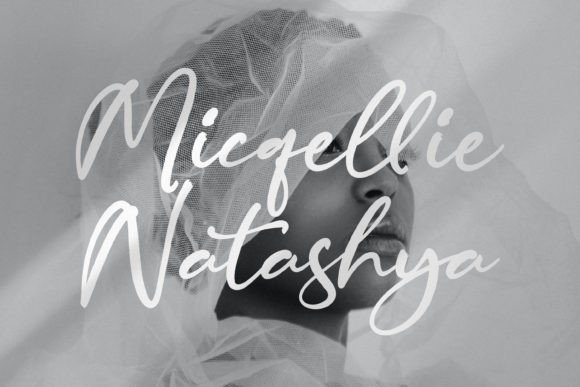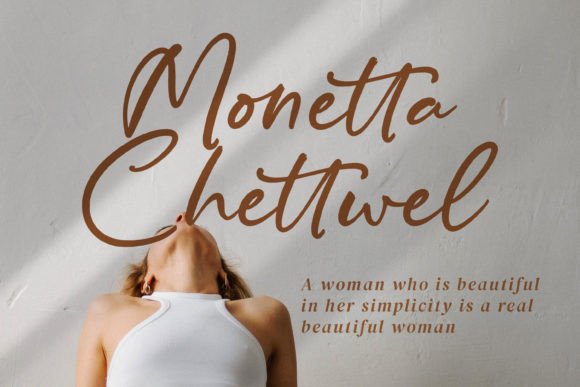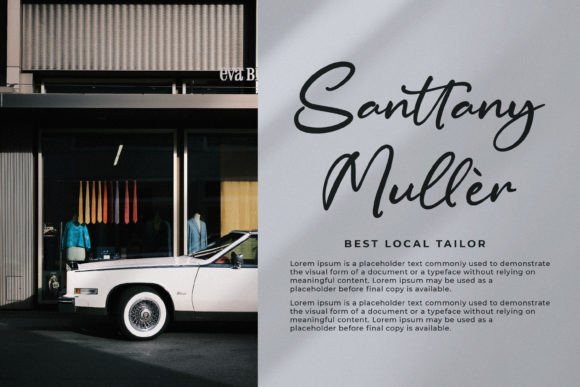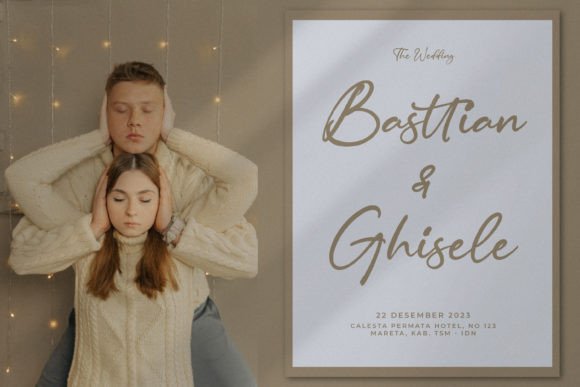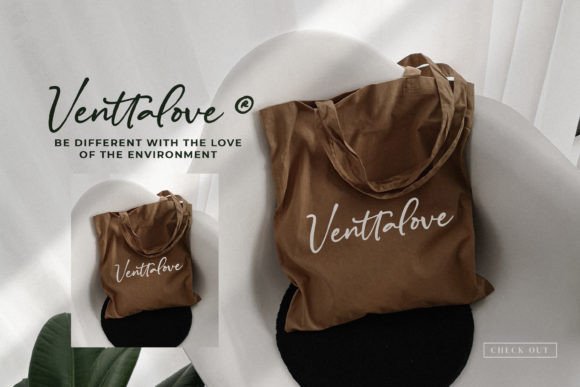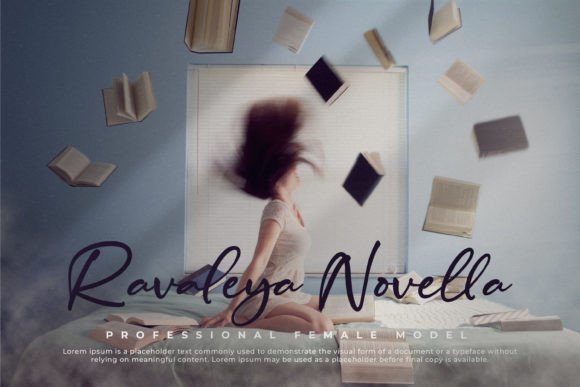
Introducing Carolena Narashy Font: The Ultimate Handwritten Script Font for Luxury Projects
Are you a designer or crafter looking for a premium handwritten script font to elevate your projects? Look no further than Carolena Narashy Font. This stunning font is perfect for a wide range of applications, from logos and branding projects to homewares designs, product packaging, and more.
What is Carolena Narashy Font?
Carolena Narashy – Handwritten Script Font is a high-end font designed to add a touch of luxury and sophistication to any project. Its elegant, cursive script is perfect for creating beautiful and eye-catching designs that exude premium quality.
Key Features of Carolena Narashy Font
- Handwritten Script: Carolena Narashy Font features a beautiful, handwritten script that adds a personal touch to any project.
- Premium Quality: This font is designed to meet the highest standards of luxury projects, making it perfect for high-end branding, packaging, and design applications.
- Versatile: Carolena Narashy Font can be used for a wide range of projects, including logos, branding projects, homewares designs, product packaging, mugs, quotes, posters, shopping bags, t-shirts, covers books, business cards, invitation cards, greeting cards, labels, photography, watermarks, and more.
- Elegant and Sophisticated: This font’s elegant and sophisticated design makes it perfect for creating luxurious and high-end designs.
Use Cases for Carolena Narashy Font
Carolena Narashy Font is perfect for a wide range of design applications, including:
- Logos and Branding: Create a luxurious and memorable brand identity with Carolena Narashy Font.
- Product Packaging: Add a touch of elegance and sophistication to your product packaging with this stunning font.
- Homewares Designs: Create beautiful and eye-catching homewares designs, such as ceramics, textiles, and more.
- Mugs and Apparel: Add a personal touch to mugs, t-shirts, and other apparel with Carolena Narashy Font.
- Stationery and Invitations: Create beautiful and elegant stationery, invitations, and greeting cards with this font.
Benefits of Using Carolena Narashy Font
By using Carolena Narashy Font, designers and crafters can enjoy a range of benefits, including:
- Unique and Luxurious Designs: Create stunning and unique designs that stand out from the crowd.
- Elegance and Sophistication: Add a touch of elegance and sophistication to any project.
- Versatility: Use Carolena Narashy Font for a wide range of design applications.
- High-Quality: Enjoy a high-quality font that meets the highest standards of luxury projects.
Carolena Narashy Font is a premium handwritten script font that is perfect for designers and crafters looking to create luxurious and high-end designs. With its elegant and sophisticated design, versatility, and high-quality craftsmanship, this font is sure to elevate any project. Whether you’re working on logos, branding projects, product packaging, or more, Carolena Narashy Font is the perfect choice.